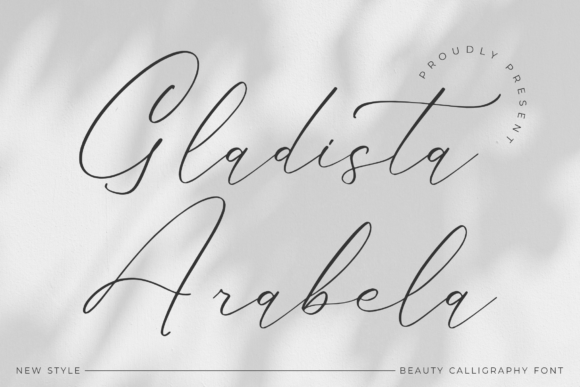
Introducing Gladista Arabela, the epitome of elegance and luxury in the world of calligraphy fonts. This exquisite script, crafted by Storytype Studio, is not just a font; it's an artistic masterpiece that will transform your designs into breathtaking works of art.
Born from the desire to create something truly unique and captivating, Gladista Arabela possesses a distinctive style that sets it apart from the ordinary. Its modern look and luxurious feel make it the perfect choice for those seeking to elevate their projects to new heights of sophistication.
With Gladista Arabela as your design companion, you can effortlessly create elegant logos that exude professionalism and leave a lasting impression. Picture your brand name adorned with the graceful curves and delicate strokes of Gladista Arabela, instantly conveying a sense of luxury and sophistication to your audience.
The versatility of Gladista Arabela knows no bounds. It seamlessly adapts to a wide range of design applications, from book or movie title designs to fashion brands, magazines, clothing, lettering, and heart-touching quotes. Its ability to effortlessly enhance any project makes it a must-have tool for designers seeking to create truly remarkable works.
Let Gladista Arabela be the secret ingredient that transforms your designs into captivating masterpieces. Its beauty and elegance will elevate your work to new heights, leaving your audience spellbound and eager for more. Embrace the power of Gladista Arabela and unlock a world of creative possibilities today.